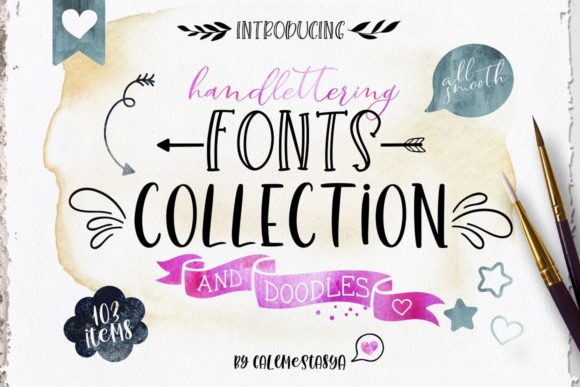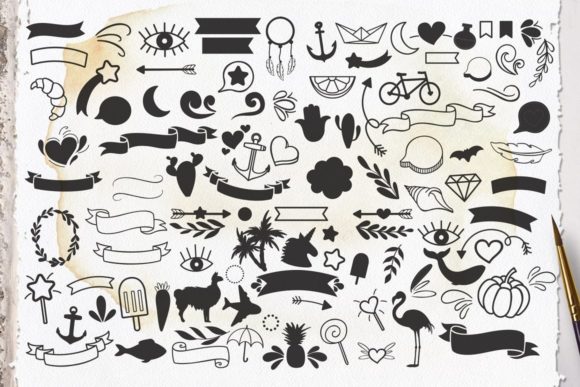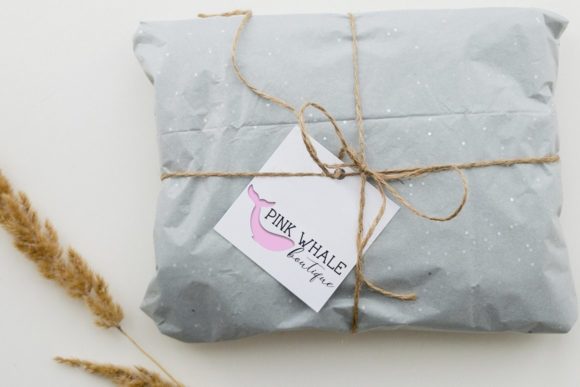
About Handlettering Fonts Collection Font
Smooth Handlettering Fonts Collection & Doodles
Includes :
Bali night – modern calligraphy script font
Bali night italic – modern calligraphy italic script font
Beachy Girl – cute script font
Beachy Girl italic – cute italic script font
Bread and tomato – serif font. All caps
Peach Pie – cute sans serif font
Peony and Lemon – decorative font. All caps
Rock Beach – decorative font
Tomato and basil – perfect to combine uppercase and lowercase
Tomato and basil Sans Serif – sans serif font
Lemonights – script font. Please note! This font doesn’t include numbers and punctuation, but it’s perfect to combine with Tomato and Basil Sans Serif
Lemonights italic – script font. Please note! This font doesn’t include numbers and punctuation, but it’s perfect to combine with Tomato and Basil Sans Serif
Doodles elements